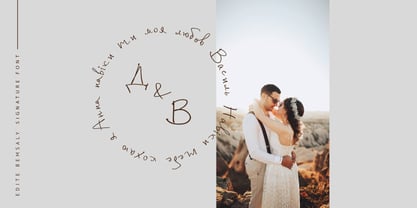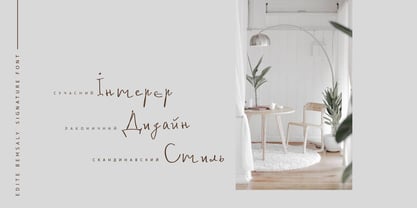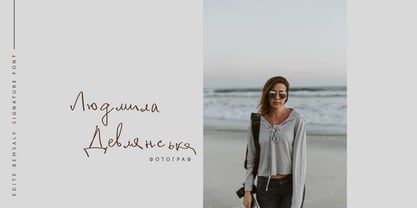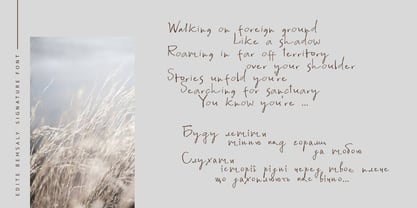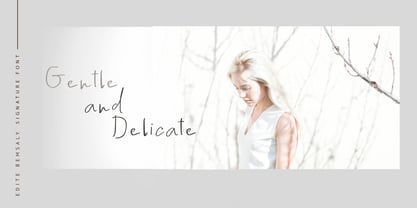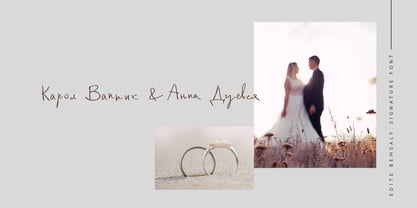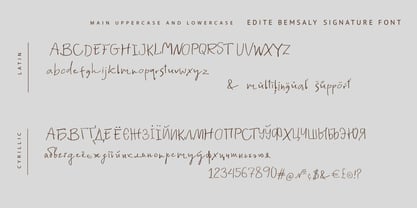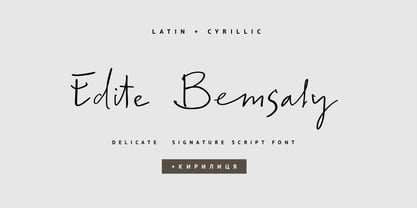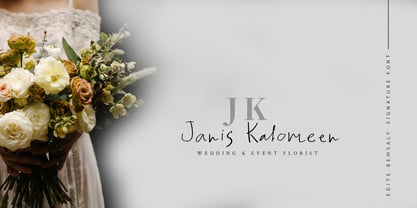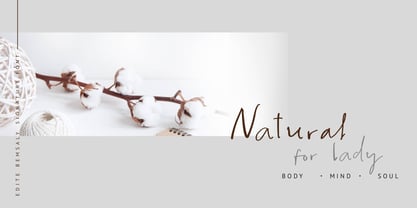
Edite Bemsaly Cyrillic
Die Schriftfamilie Edite Bemsaly Cyrillic wurde von Iryna Dviliuk entworfen und von Ira Dvilyuk veröffentlicht. Edite Bemsaly Cyrillic enthält 1 Stile.
Elegance in Every Stroke Experience the intimacy of a handwritten note with Edite Bemsaly Cyrillic Font. Edite Bemsaly Cyrillic Font is a delicate, thin-stroke script font designed to bring a sense of personal touch, sophistication, and airy lightness to your projects. Capturing the organic flow of a fine-liner pen, this font balances professional precision with the warmth of human handwriting. Key Features: Extensive Language Support: Fully equipped with a comprehensive Cyrillic character set, making it perfect for Eastern European and Central Asian markets. Refined Aesthetics: The ultra-thin weight provides a clean, modern look that remains legible even in delicate layouts. Versatile Application: Ideal for wedding invitations, lifestyle branding, poetic layouts, social media quotes, and high-end packaging. OpenType Features: Includes natural-looking ligatures and alternates to mimic real handwriting . Whether you are designing a boutique logo or a heartfelt greeting card, Edite Bemsaly Cyrillic Font adds a layer of quiet luxury and authenticity that standard scripts can't match.